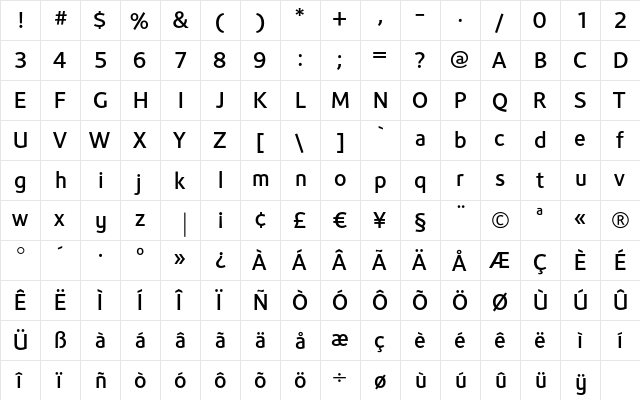
Metrolis Redondo
Design Context for Metrolis Typeface
Metrolis is a composed and adaptable typeface that performs quietly and consistently across a wide range of design contexts.